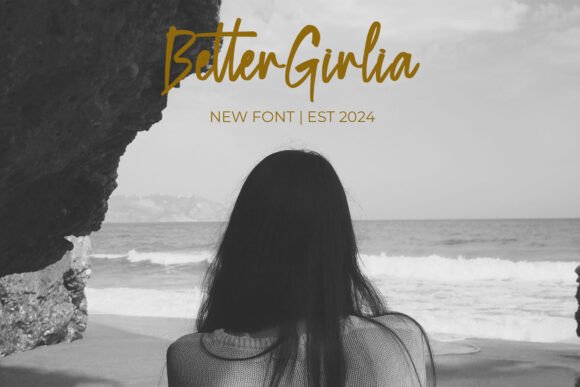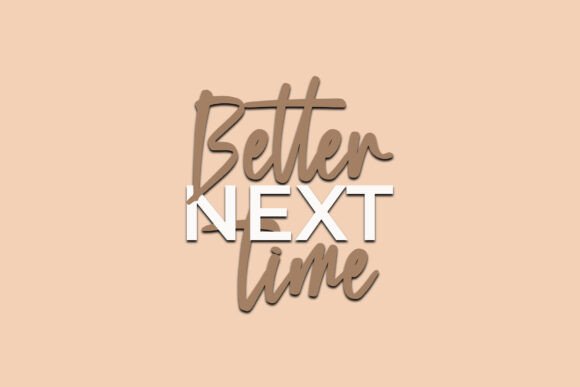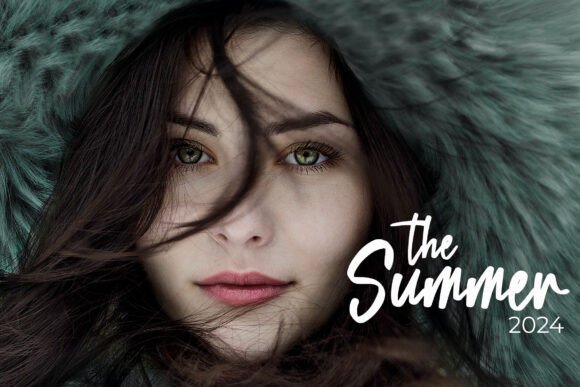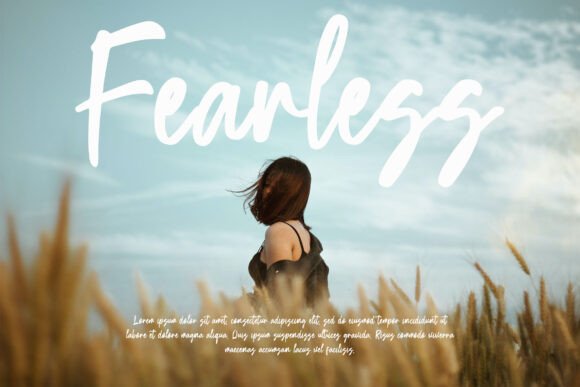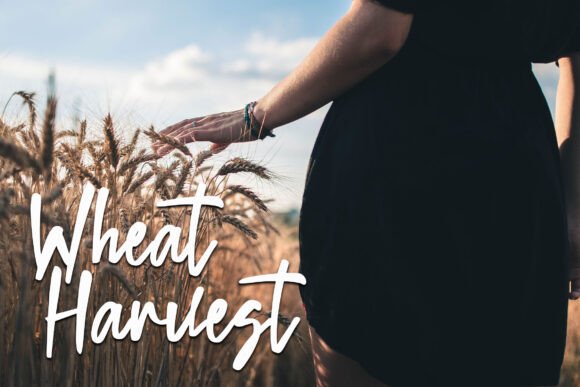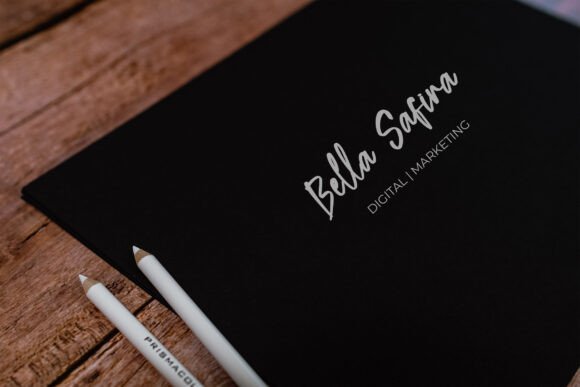
Unleash Your Creativity with the Better Girlia Font
As a designer, there’s nothing quite like the thrill of bringing a project to life. It’s that moment when all the pieces come together, and you see your vision take shape. But sometimes, it’s the smallest details that make all the difference. That’s where the Better Girlia Font comes in – a beautiful handwriting font that adds a touch of elegance and personality to your designs.
With its natural brush stroke style, Better Girlia Font is perfect for logos, product packaging, invitations, and more. Its unique character shapes will set your projects apart and give them a visually captivating look. Whether you’re a seasoned designer or just starting out, the Better Girlia Font is a valuable addition to your toolkit, helping you create stunning designs that truly stand out.
Better Girlia Font Key Features
- Font Style: Script, Cursive
- Unique Characteristics: Hand-drawn, elegant, and whimsical design with a touch of femininity, suitable for titles, headings, and other decorative text
Designer Review: Better Girlia Font
Overall, I think the Better Girlia font has some great qualities, but also some limitations. ✨ First of all, I love the playful, whimsical feel of this font. It’s perfect for a children’s book or a project that needs a touch of magic. The letterforms are elegant and refined, making it suitable for a variety of design applications.
Here are some things that I think work well:
- ✨ Unique and creative letterforms that add a touch of personality to any design
- ✨ Elegant and refined feel that makes it suitable for a variety of design applications
- ✨ Great for projects that need a touch of magic, such as children’s books or fantasy-themed designs
However, I do have some concerns:
- ⚠️ Limited character set, which may make it difficult to use for long blocks of text
- ⚠️ May not be suitable for professional or formal designs, as it has a more playful feel
- ⚠️ Some letterforms may be difficult to read at small font sizes
Overall, I think the Better Girlia font is a great choice for designers who want to add a touch of whimsy to their projects. However, it may not be suitable for every design application, and users should be aware of its limitations.
Better Girlia Font is perfect for:
- Stationery and greeting cards
Remember to use the font consistently throughout your design to create a cohesive look.
Alternatives to “Better Girlia Font” for Designers
Great Vibes Font is a modern, elegant script font that is perfect for creating a sophisticated and professional look. It is ideal for use in branding, advertising, and editorial design.
Compared to Better Girlia Font, Great Vibes Font has a more refined and polished feel, making it suitable for high-end designs. It lacks the playful, cursive feel of Better Girlia Font, but offers a more sophisticated alternative.
Carolyna Pro Font is a high-end, modern script font that is designed for luxury branding and high-end design projects. It features a unique, flowing feel that is perfect for creating a sense of elegance and sophistication.
Compared to Better Girlia Font, Carolyna Pro Font has a more refined and polished feel, making it suitable for high-end designs. It offers a more luxurious and sophisticated alternative to Better Girlia Font, with a unique, flowing feel that sets it apart.
Alex Brush Font is a modern, elegant script font that is perfect for creating a sophisticated and professional look. It features a flowing, cursive feel that is ideal for use in branding, advertising, and editorial design.
Compared to Better Girlia Font, Alex Brush Font has a more refined and polished feel, making it suitable for high-end designs. It offers a more sophisticated alternative to Better Girlia Font, with a unique, flowing feel that sets it apart.